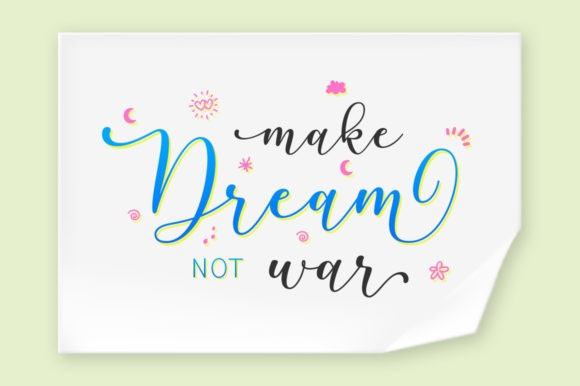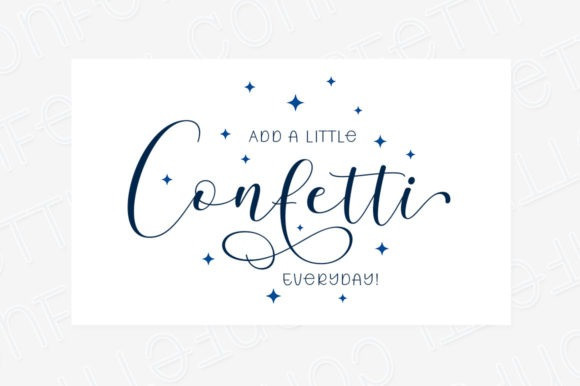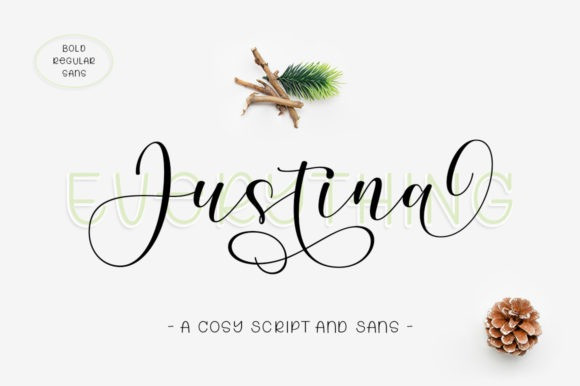
Justina Font
Justina Font is a beautiful duo font (sans serif and script), specially made for those who need a touch of elegance and modernity to their designs. This beautiful typeface is perfect for logos, product packaging, wedding invitations, branding, headlines, signage, labels, signatures, book covers, posters, quotes, and more.